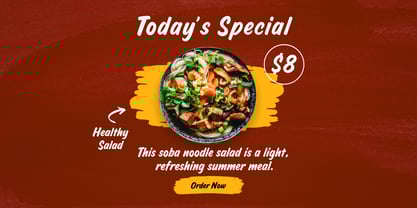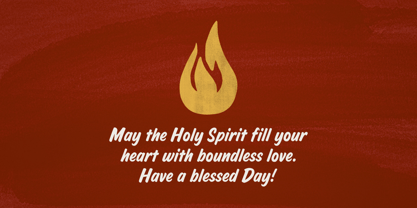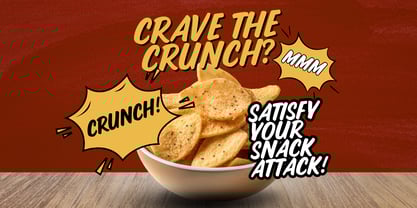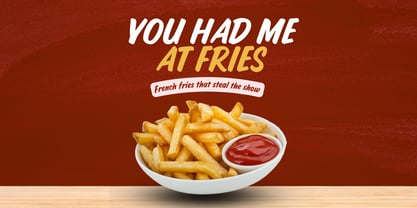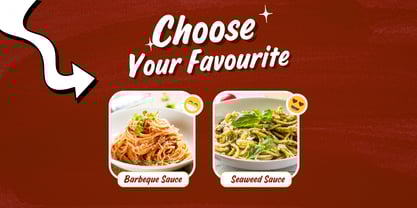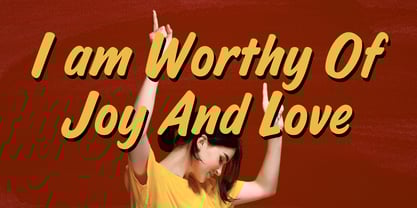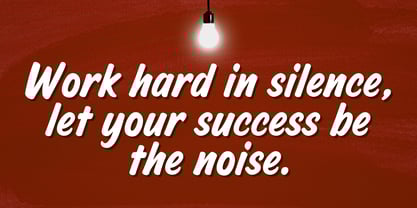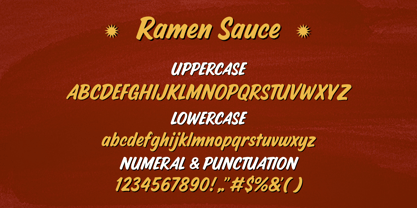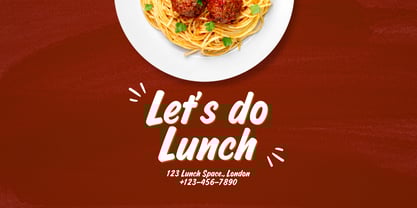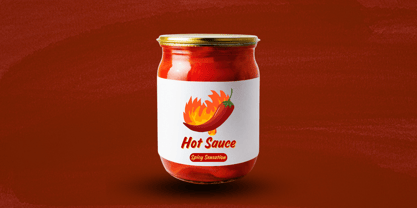
Ramen Sauce
by Fikryal
The Ramen Sauce Font Family was designed by Muhammad Fikry and published by Fikryal. Ramen Sauce contains 1 styles. More about this family
Ramen Sauce is a bold and playful handwritten display font that combines casual strokes with a retro charm. Its thick, smooth letterforms give a warm, friendly vibe that instantly connects with audiences, making it an excellent choice for food branding, packaging, posters, social media, and logo design.
Inspired by the joyful energy of handwritten brush lettering, Ramen Sauce brings personality and flavor to any project. Whether you’re designing a ramen shop logo, creating vintage-style merchandise, or crafting standout advertising headlines, this font delivers a unique balance of fun and professionalism.
Its versatile design makes it perfect for both modern and nostalgic aesthetics, ensuring your projects look stylish across digital and print media.
What’s Inside:
• Uppercase & lowercase letters
• Numbers & punctuation
• Multilingual support
Best For:
✔ Food & beverage branding (restaurants, cafés, packaging)
✔ Retro-inspired posters & flyers
✔ Logo & identity design
✔ Apparel & merchandise
✔ Social media ads & graphics
Give your brand the flavor it deserves with Ramen Sauce – a handwritten display font full of character.
Designers: Muhammad Fikry
Foundry: Fikryal